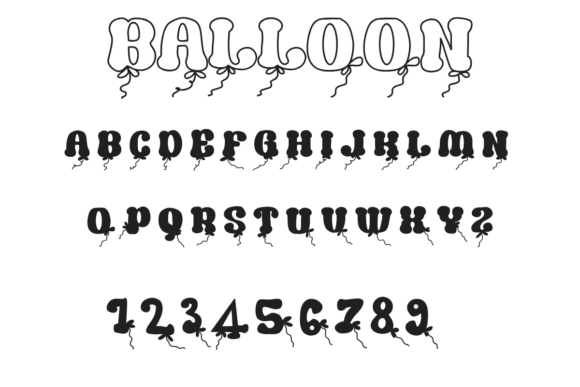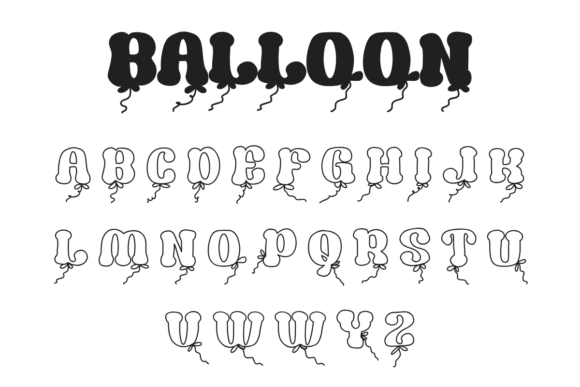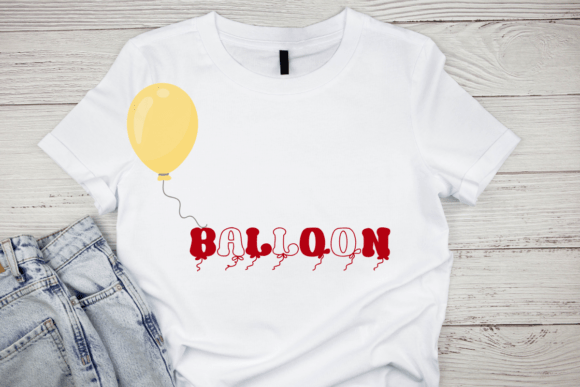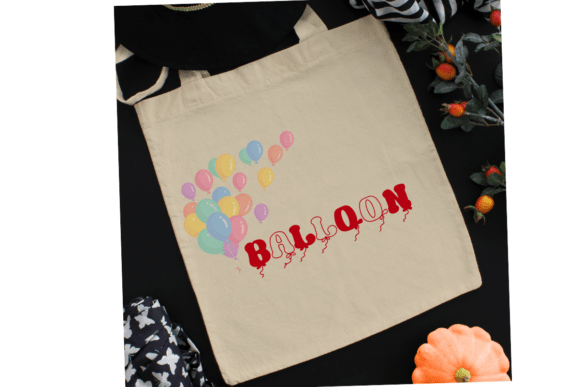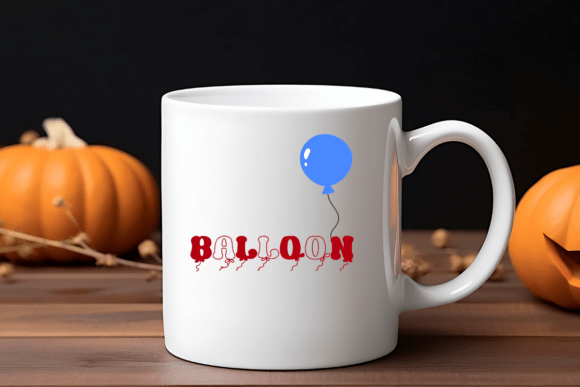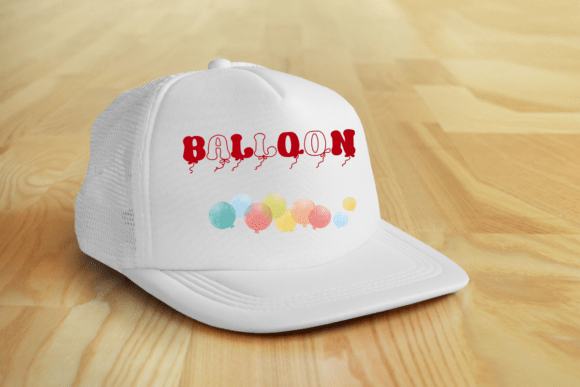
Introducing Balloon Font: The Ultimate Celebration Companion
Are you looking for a font that can instantly add a touch of joy and celebration to your designs? Look no further than Balloon Font, a lively and whimsical decorative font that’s perfect for party invitations, kids’ designs, festive packaging, and birthday-themed merchandise.
The Inspiration Behind Balloon Font
Balloon Font is designed to mimic the soft, inflated look of real balloons, complete with playful curves and floating strings that dangle beneath the letters. The font’s creator aimed to capture the essence of celebration and fun, making it an ideal choice for any project that requires a lively and energetic vibe.
Key Features of Balloon Font
- Playful Curves: Each character in Balloon Font features soft, rounded curves that evoke the look of inflated balloons.
- Floating Strings: The font includes delicate strings that dangle beneath the letters, adding a touch of whimsy to your designs.
- Solid and Outlined Styles: Balloon Font comes in both solid and outlined styles, offering creative flexibility for a wide range of projects.
- Bold and Bubbly Aesthetic: The font’s bold, bubbly aesthetic makes it perfect for headlines and display use, adding fun and energy to any project.
- Clear Legibility: Despite its playful design, Balloon Font remains clearly legible, making it suitable for use in a variety of contexts.
Uses for Balloon Font
Balloon Font is incredibly versatile, making it suitable for a wide range of projects, including:
- Party Invitations: Create eye-catching invitations for birthday parties, graduations, and other celebrations.
- Kids’ Designs: Use Balloon Font to add a touch of fun and whimsy to kids’ party decorations, games, and activities.
- Festive Packaging: Add a celebratory touch to your product packaging with Balloon Font.
- Birthday-Themed Merchandise: Create fun and festive merchandise, such as t-shirts, mugs, and party hats, using Balloon Font.
Tips for Using Balloon Font
To get the most out of Balloon Font, try the following tips:
- Experiment with Colors: Balloon Font looks great in bright, bold colors, so don’t be afraid to experiment with different hues.
- Mix and Match: Combine Balloon Font with other fonts to create a unique and eye-catching design.
- Use it as a Statement Piece: Use Balloon Font as a statement piece in your design, and then use a simpler font for body text.
Balloon Font is a fun and festive decorative font that’s perfect for adding a touch of celebration to your designs. With its playful curves, floating strings, and bold, bubbly aesthetic, it’s sure to bring joy and energy to any project. Whether you’re a designer, crafter, or DIY enthusiast, Balloon Font is a great addition to your font collection.